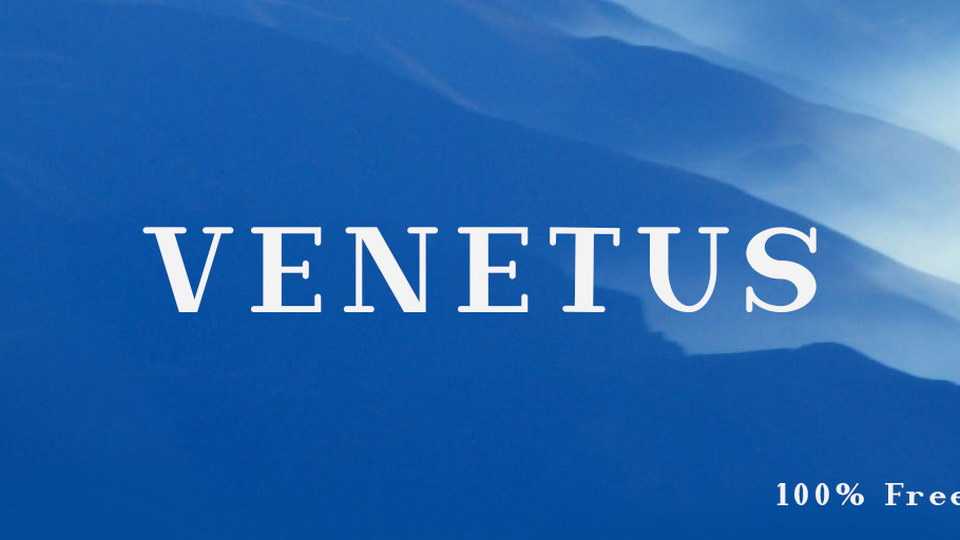
Download Venetus font, a medium contrast serif typeface with a smooth shapes and warm and soft look. Venetus font is suitable for short text blocks, headlines, posters and more.
Designer: Joseph Espinoza